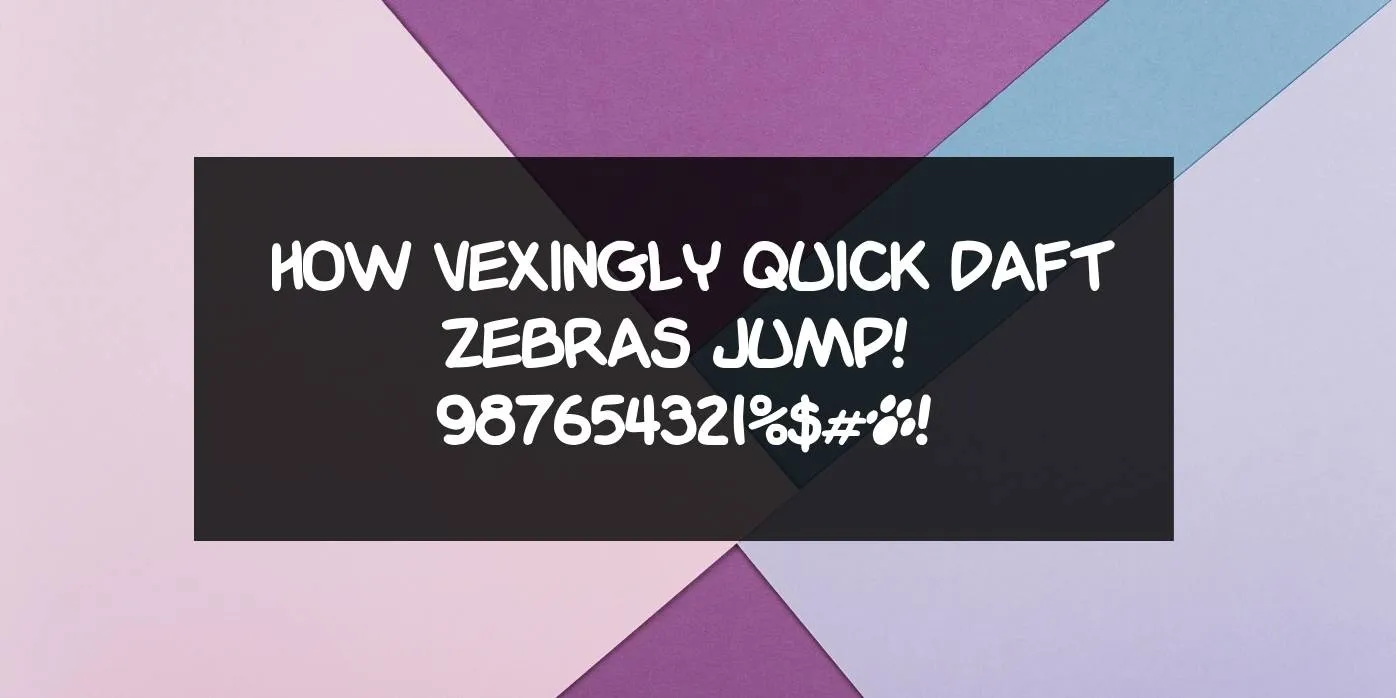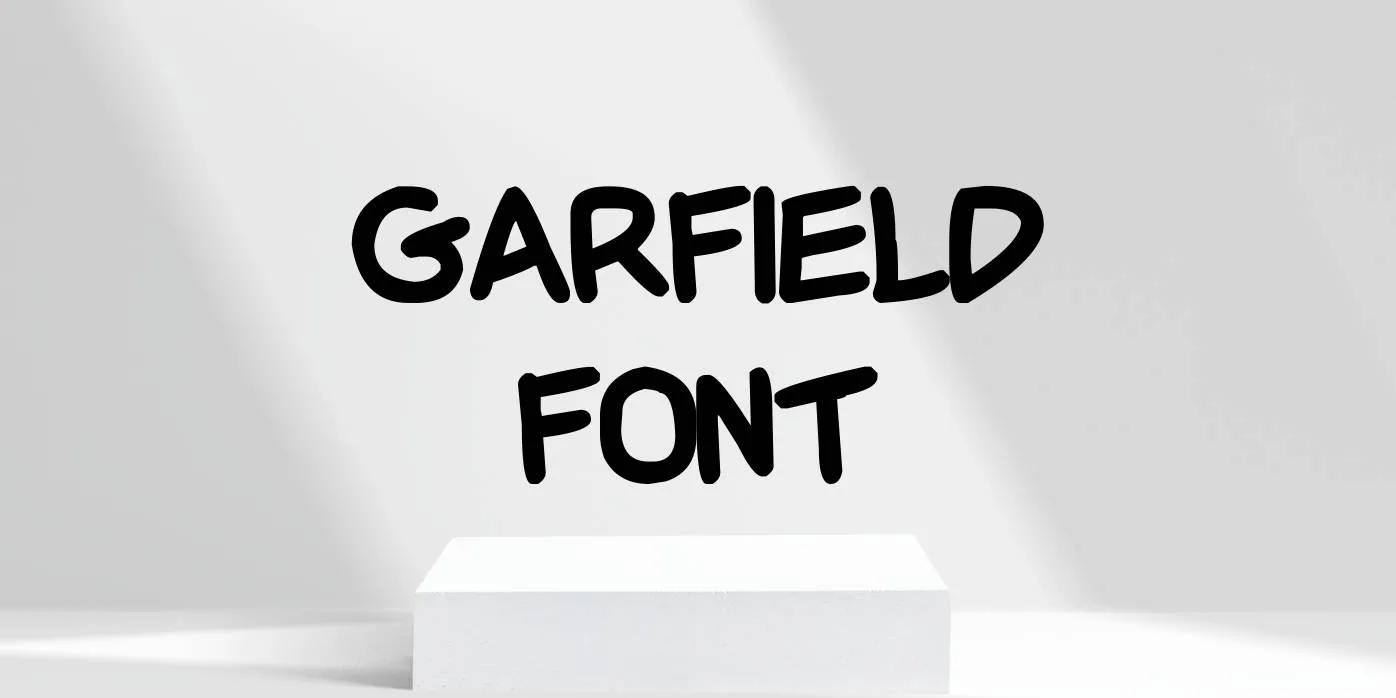
Garfield Font
Garfield Font belongs to the category of fancy fonts.  It is a unique font with a stylish look. The best thing about Garfield Typeface is that it is extremely easy to read. This makes it perfect for website headers, logos, and other design elements that need to be easily visible. This family has thick strokes and 250 unique glyphs.
Garfield Typeface supports most Latin-based languages. Its styles include Regular, Bold, and Italic. It is famous for its large X height and its copy and paste function. You can also use happy sans font which is closest to this font family.
If you are looking for a stylish font with a unique flair, this font is a great option. Its easy-to-read design makes it perfect for website headers, logos, and other design elements. Its text generator tool is well suitable for many classic and wonderful tasks.